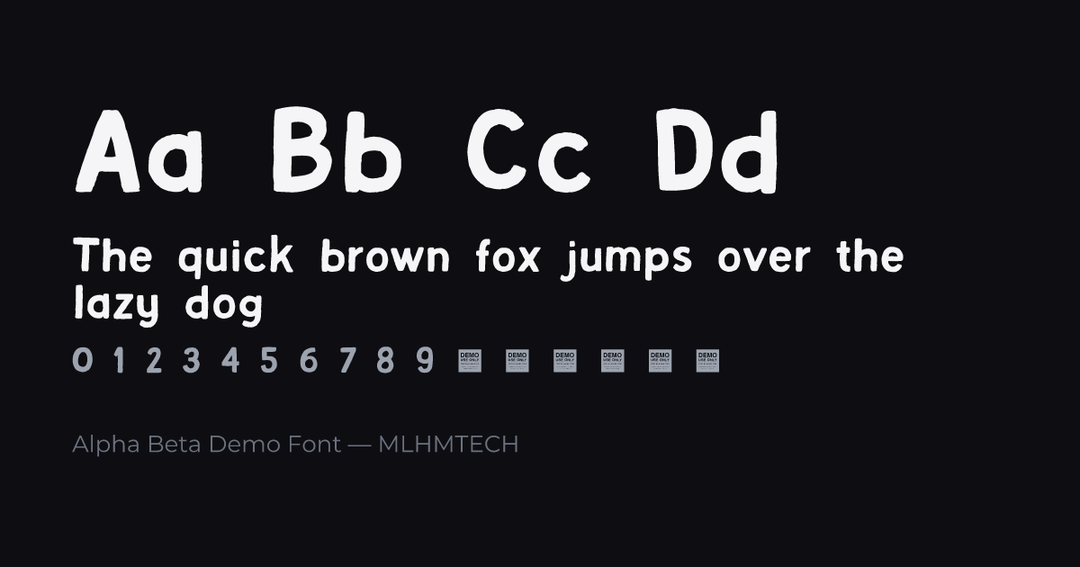
Alpha Beta Demo Font
Alpha Beta Demo is a modern sans-serif typeface with clean lines and a bold presence. Perfect for logos, branding, and eye-catching headlines.
Alpha Beta Demo is a versatile sans-serif font that combines geometric shapes with a contemporary feel. Its clean, legible letterforms make it ideal for a wide range of design projects, from corporate branding to creative posters.
Whether you're designing a logo, website, or print material, Alpha Beta Demo adds a touch of modern sophistication to your work.